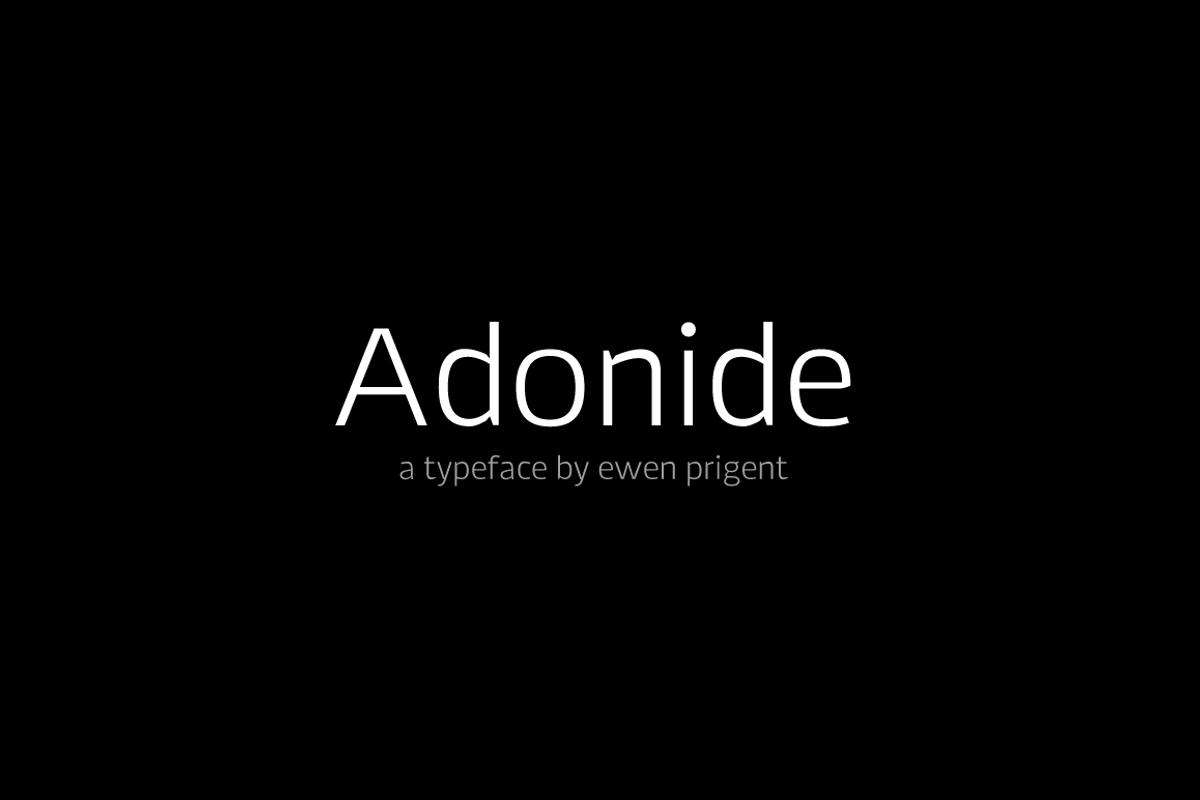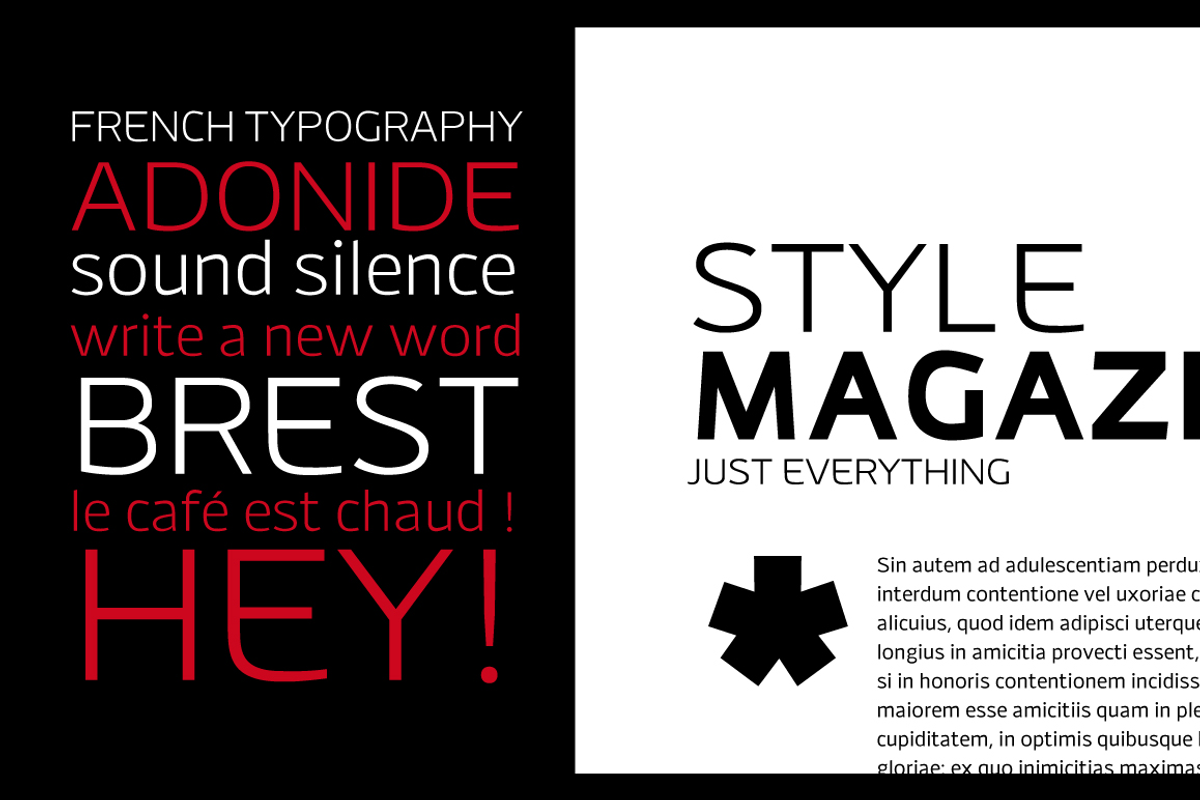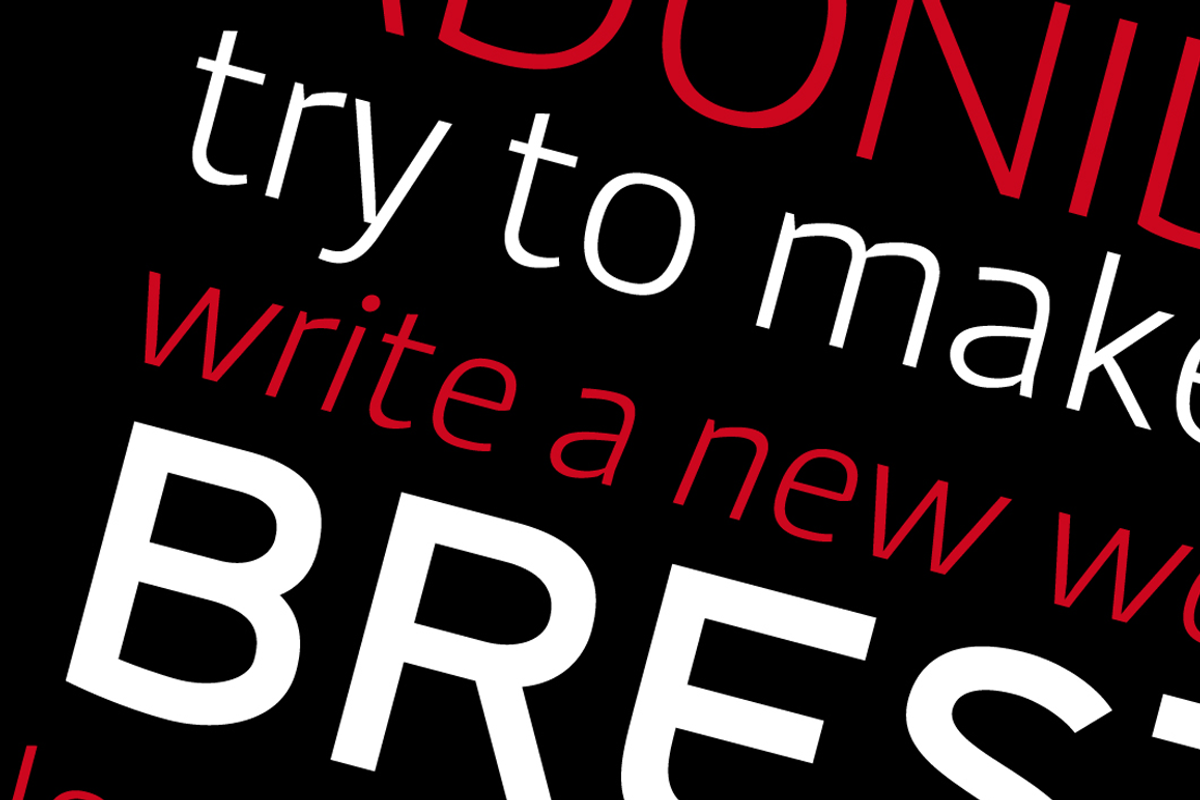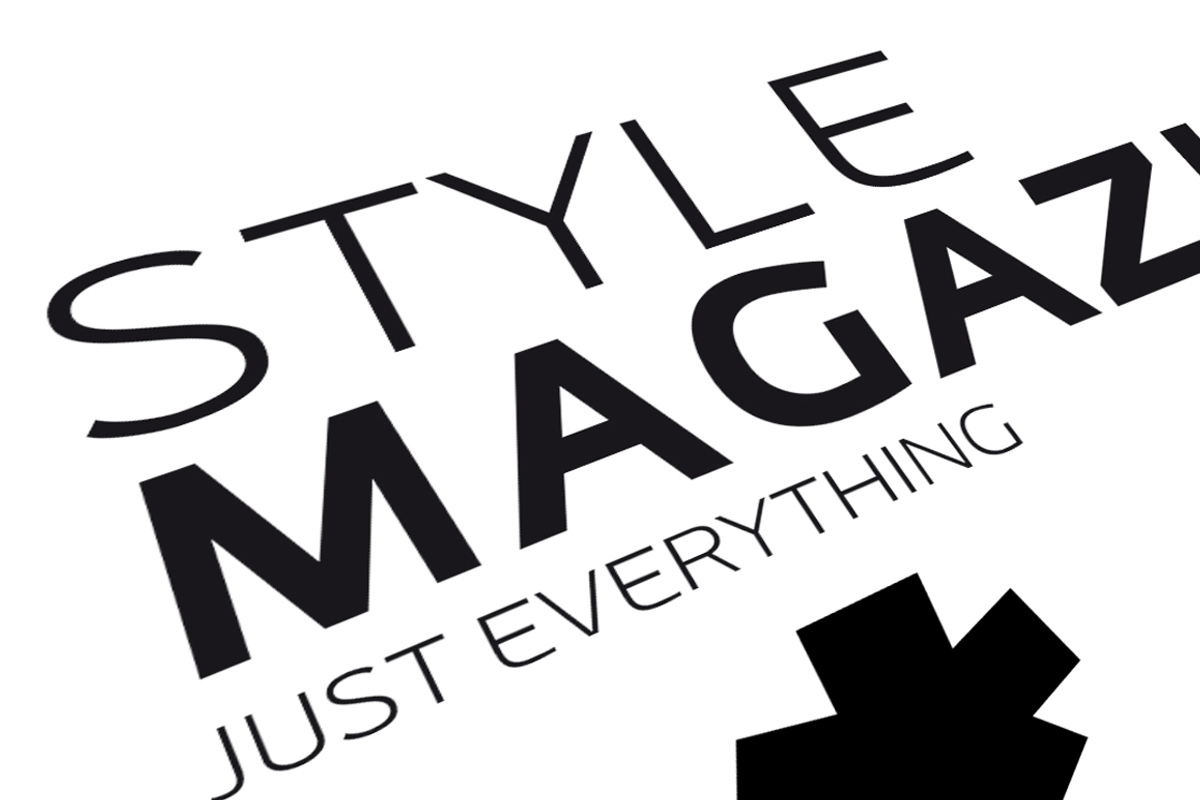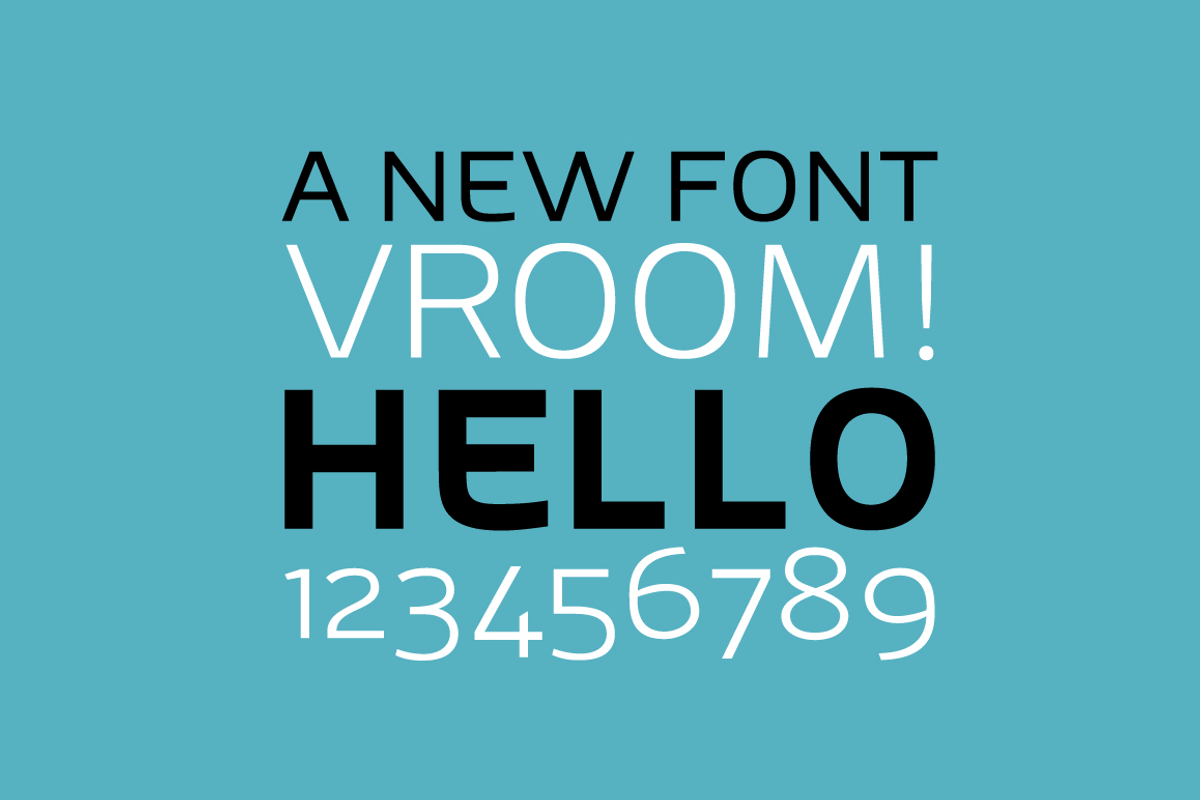
Adonide
A functional typographic system from La Boîte Graphique, the Adonide family is an elegant design featuring both geometric and grotesque sensibilities. The design is imbued with personality through quirky curves, and letterforms that are broad — and readable — with large open counters. Adonide is available in four weights — from light to bold — each with italics, affording it capabilities as a stalwart choice for punchy print presentations. Article on www.fonts.com newsletter : New Best Sellers for October 2013